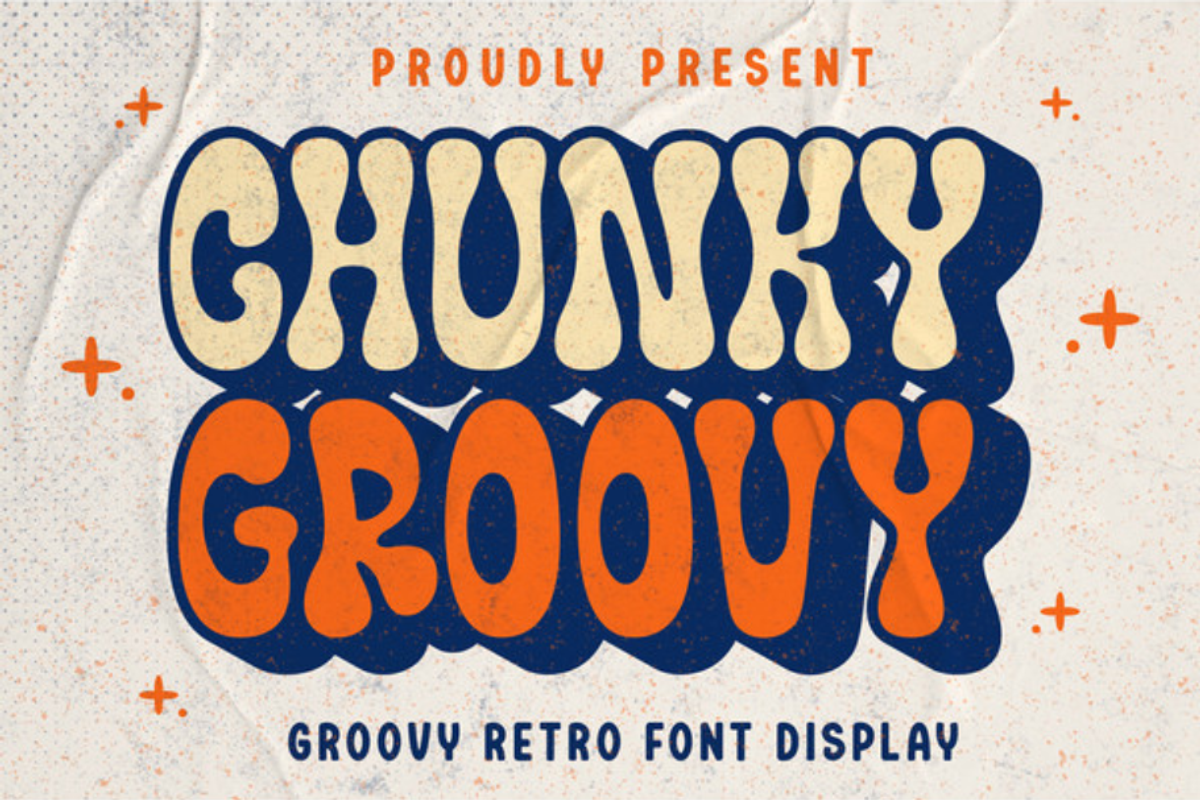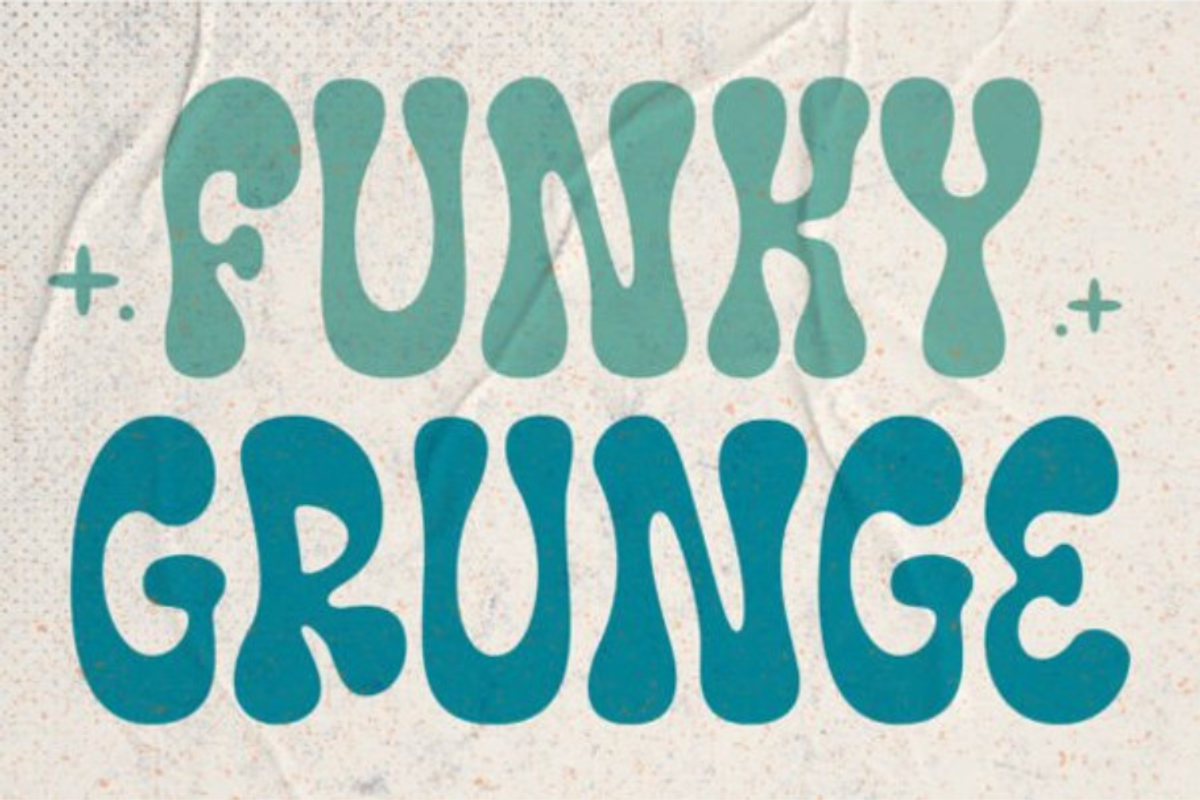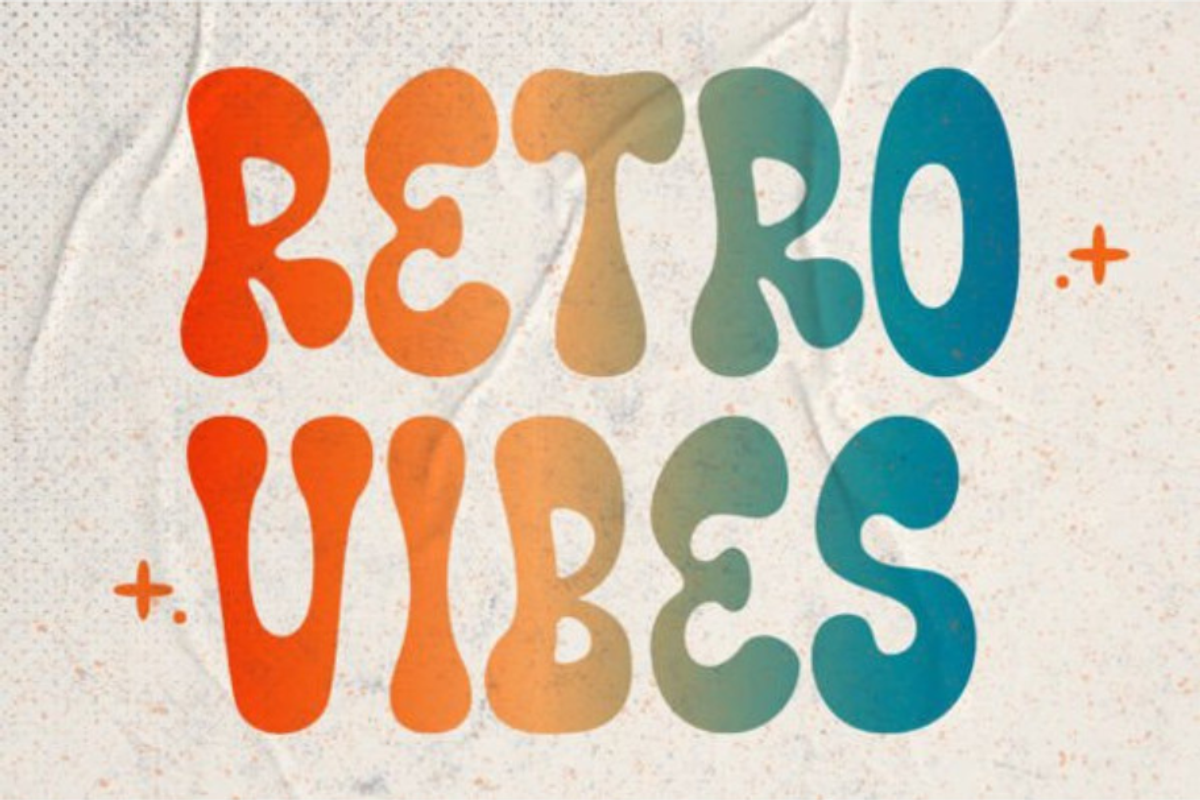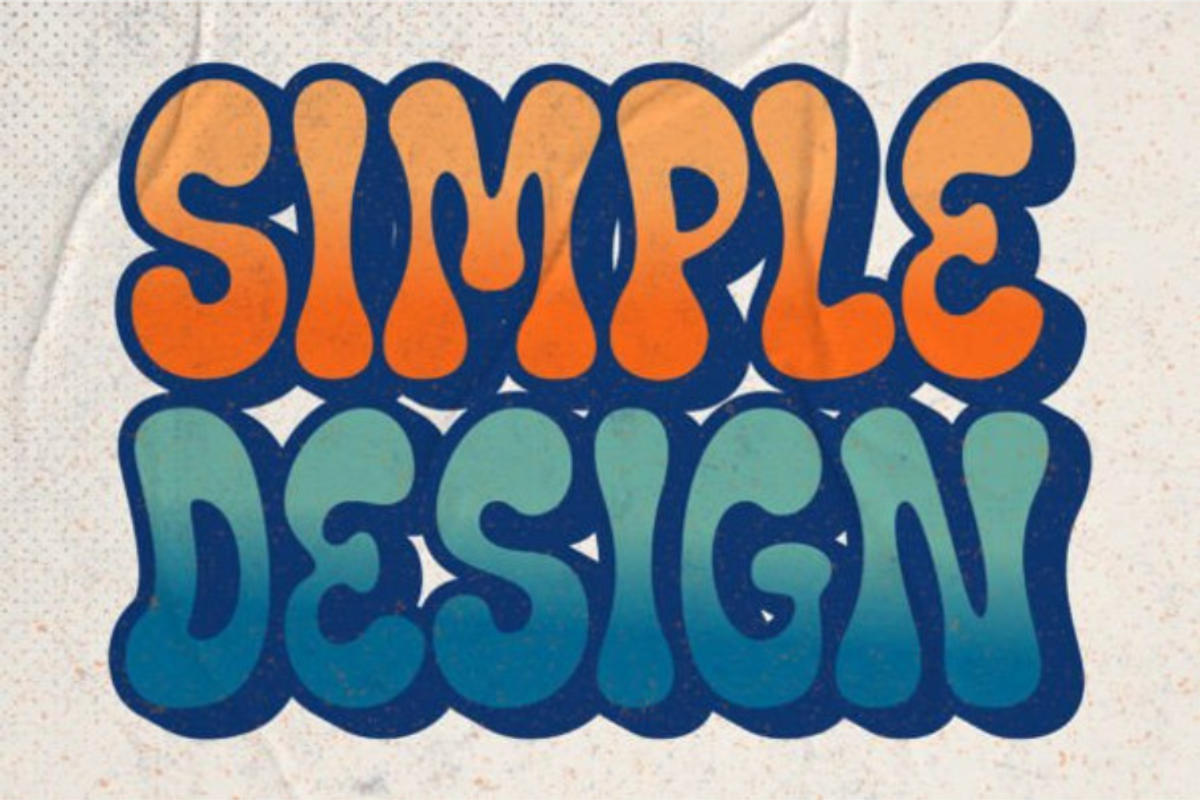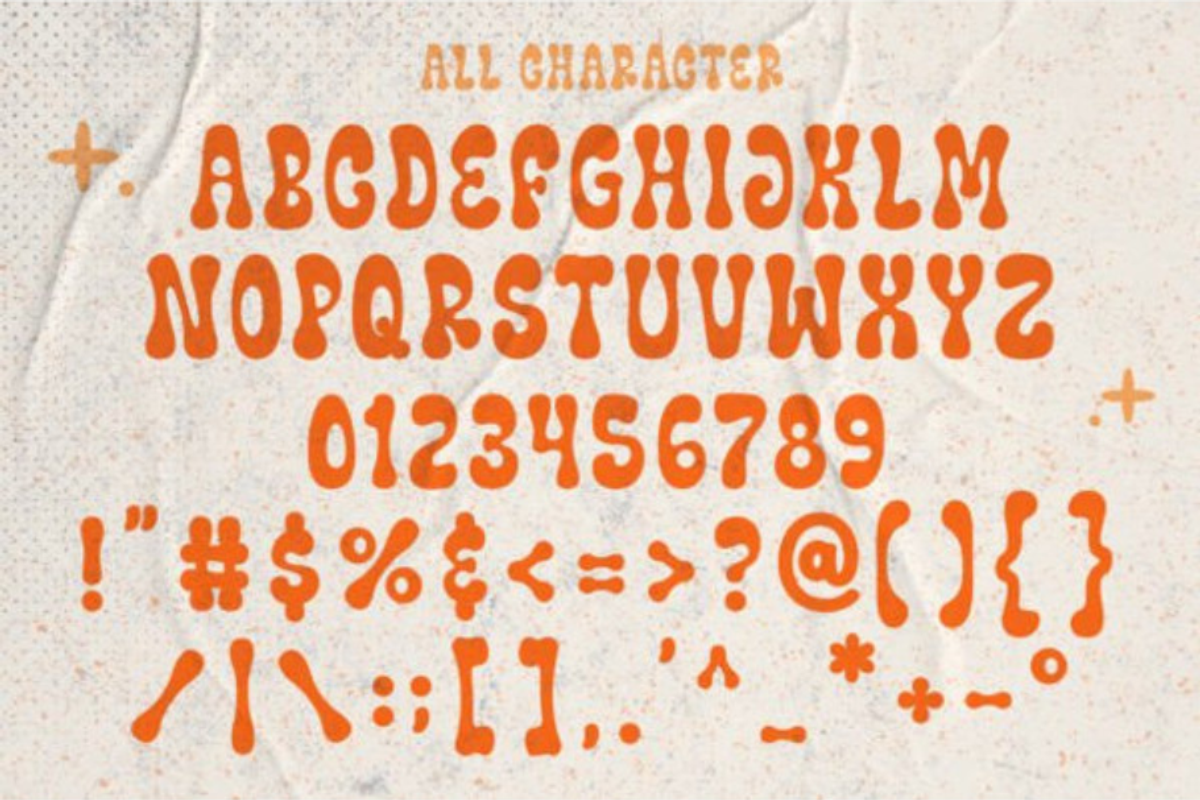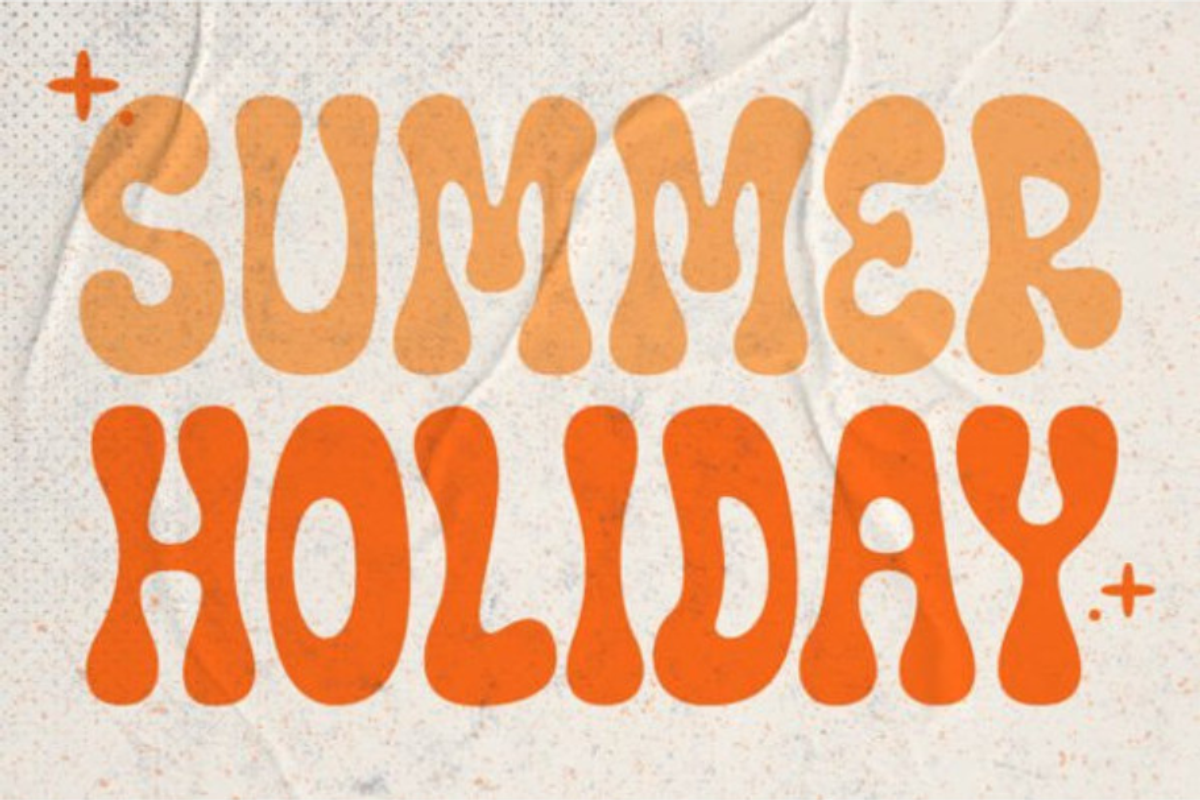
Chunky Groovy Font
Experience the playful nostalgia of Chunky Groovy, offering an incredible vintage aesthetic to elevate any design. Utilize this display font to infuse your ideas with a special retro charm. With both uppercase and lowercase, numbers, punctuation, and multilingual support, this font, available in otf and ttf formats, is masterfully designed to become your favorite. The outline layered font adds versatility. For optimal use, we recommend programs supporting OpenType features and Glyphs panels, such as Adobe apps and Corel Draw. Unleash your creativity with Chunky Groovy!